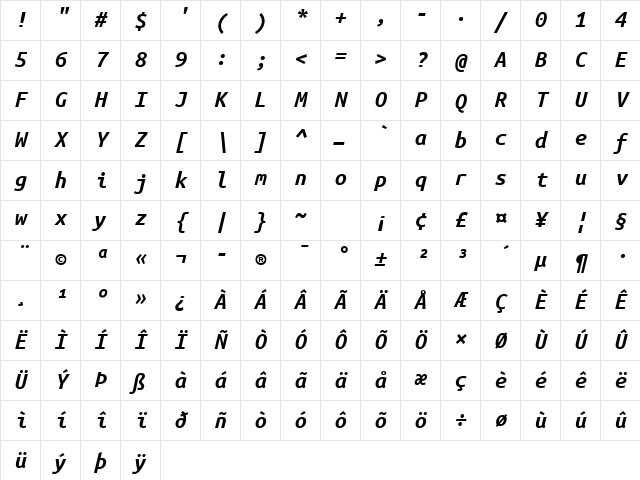
UbuntuMono NF Bold Italic
Foundry: Dalton Maag Ltd
Designer: Dalton Maag Ltd
Design Context for UbuntuMono NF
UbuntuMono NF uses fixed-width spacing throughout, giving it the structured, systematic character associated with coding environments and technical documentation. The slanted form adds forward momentum and visual energy. Its bold stroke weight gives it real presence on the page.